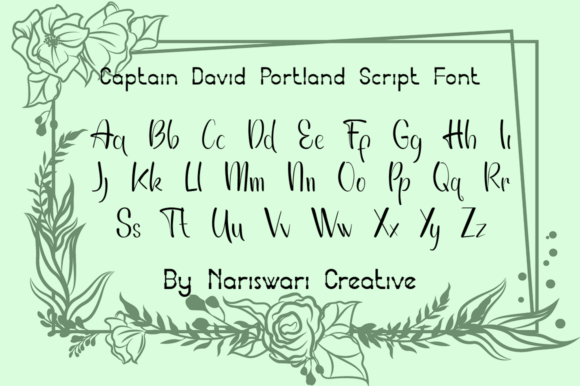
Discover the Elegance of Captain David Portland Font
Are you a designer or crafter looking for a font that exudes charm and elegance? Look no further than the Captain David Portland Font. This beautiful handwritten font is perfect for adding a touch of sophistication to any design project. In this article, we’ll explore the features and benefits of the Captain David Portland Font, and show you how to make the most of this stunning font.
What is Captain David Portland Font?
Captain David Portland Font is a modern script font that is inspired by traditional calligraphy. It features elegant, cursive letters with a touch of whimsy and playfulness. The font is designed to look like it was written with a pen, giving it a personal and handmade feel. This makes it perfect for designs that require a human touch, such as wedding invitations, thank you cards, and greeting cards.
Key Features of Captain David Portland Font
- Handwritten style: The Captain David Portland Font has a beautiful, handwritten style that gives it a personal and unique feel.
- Elegant and charming: The font is both elegant and charming, making it perfect for designs that require a touch of sophistication.
- Versatile: The font is versatile and can be used for a wide range of design projects, from wedding invitations to business cards.
- Easy to read: Despite its elegant style, the font is easy to read, making it perfect for designs that require a clear and legible text.
Uses of Captain David Portland Font
The Captain David Portland Font is perfect for a wide range of design projects, including:
- Wedding invitations: The font’s elegant and charming style makes it perfect for wedding invitations, save the dates, and other wedding-related designs.
- Thank you cards: The font’s handwritten style makes it perfect for thank you cards, greeting cards, and other personal correspondence.
- Quotes and posters: The font’s elegant style makes it perfect for quotes, posters, and other designs that require a touch of sophistication.
- Logos and branding: The font’s unique style makes it perfect for logos and branding projects that require a personal and handmade feel.
- Business cards: The font’s elegant style makes it perfect for business cards, letterheads, and other business-related designs.
Tips for Using Captain David Portland Font
Here are some tips for using the Captain David Portland Font in your design projects:
- Use it sparingly: The font’s elegant style can be overwhelming if used too much. Use it sparingly to add a touch of sophistication to your design.
- Pair it with a sans-serif font: Pairing the Captain David Portland Font with a sans-serif font can create a beautiful contrast and make your design more readable.
- Experiment with colors: The font’s elegant style looks great in a variety of colors. Experiment with different colors to find the one that works best for your design.
- Pay attention to spacing: The font’s handwritten style requires careful attention to spacing. Make sure to leave enough space between letters and words to create a clean and legible design.
| Font Name | Captain David Portland Font |
| Author | Nariswari Creative |
In conclusion, the Captain David Portland Font is a beautiful and elegant font that is perfect for designers and crafters looking to add a touch of sophistication to their design projects. Its handwritten style, elegant charm, and versatility make it perfect for a wide range of designs, from wedding invitations to business cards. By following the tips outlined in this article, you can make the most of this stunning font and create designs that are both beautiful and effective.